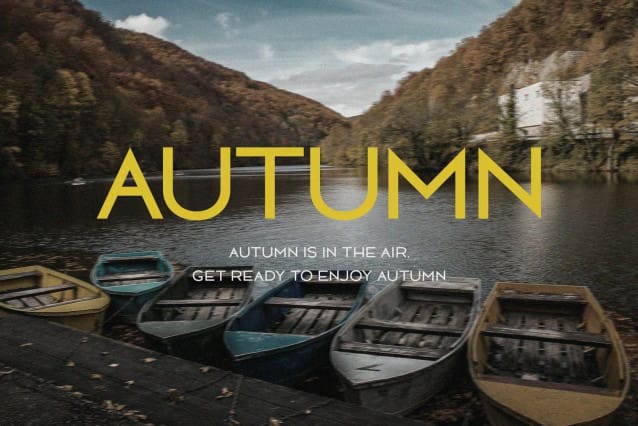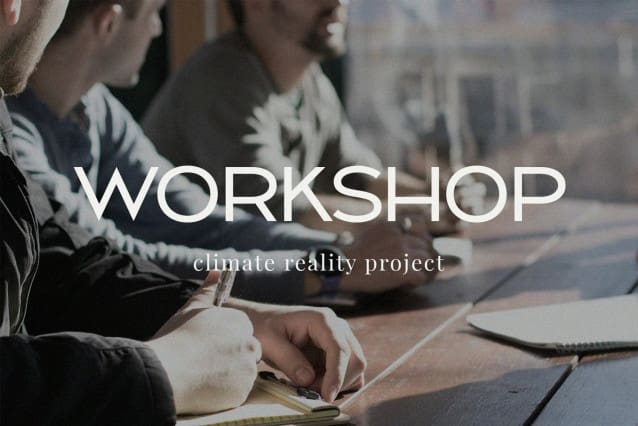
Melody Sans Font
Melody Sans Font is a modern typeface and futuristic, best used as a display for headings, logos, branding, magazines, product packaging and invitations. Melody come with clean lines and smooth curves give any project an extra touch of class.